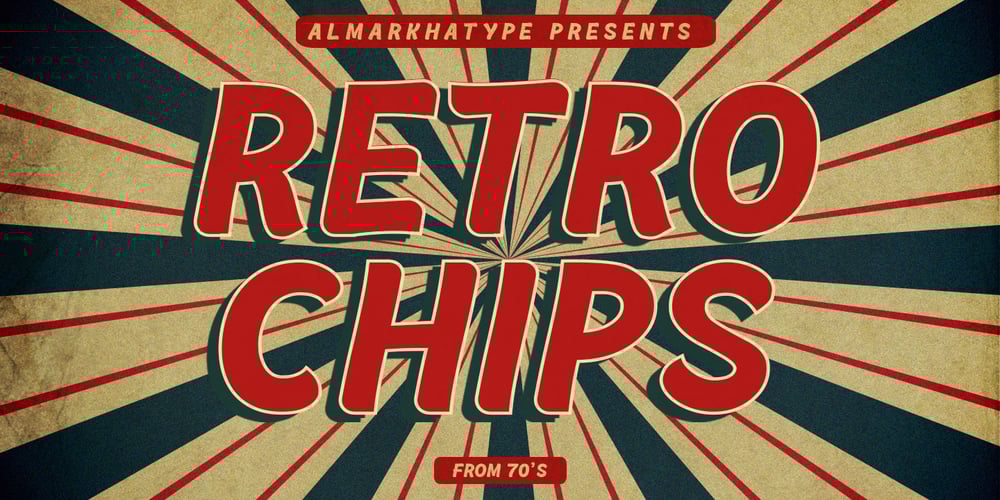
Retrochips Font Family was designed by Abdul Malik Wisnu and published by Almarkha Type. Retrochips contains 2 styles and family package options. Introducing Retrochips Fonts with a vintage touch reminiscent of past designs, making your design look unique and classic. Retrochips has 2 variants, Regular and Line, as a perfect blend in your graphic design.